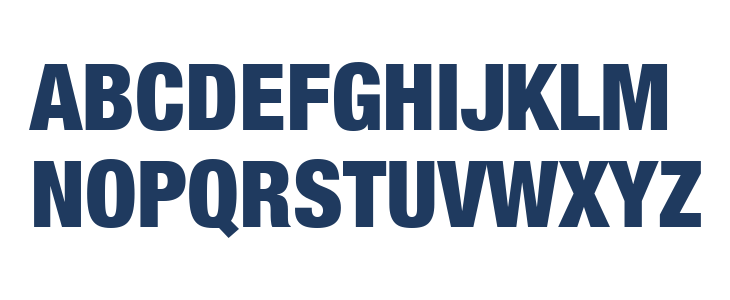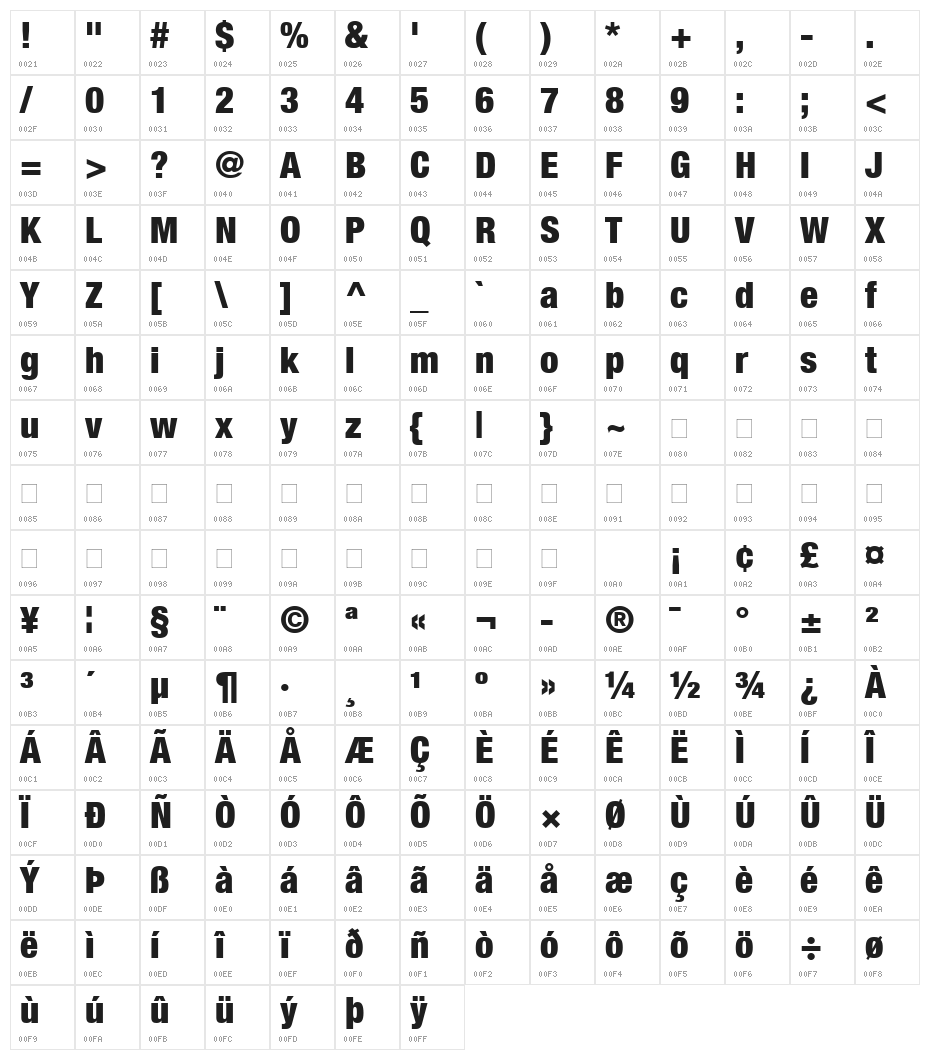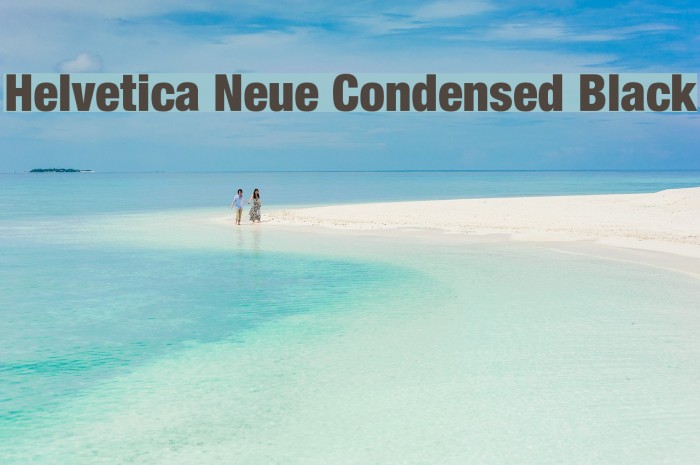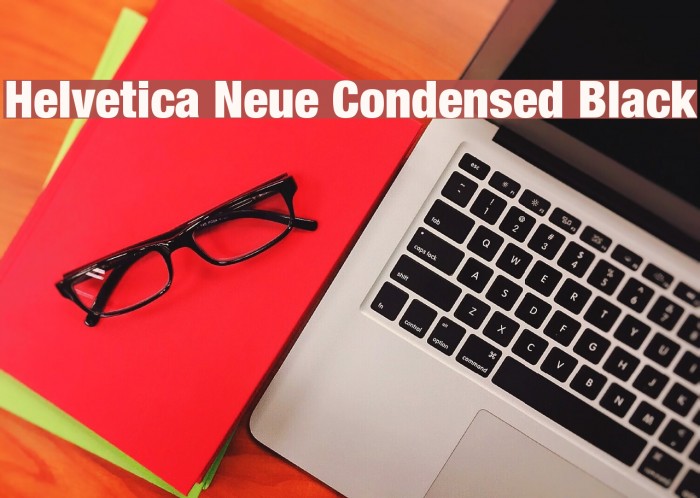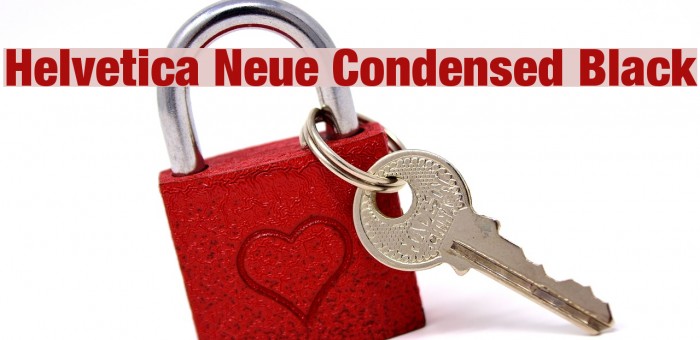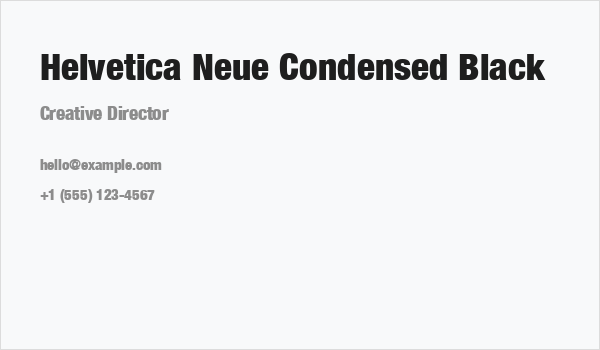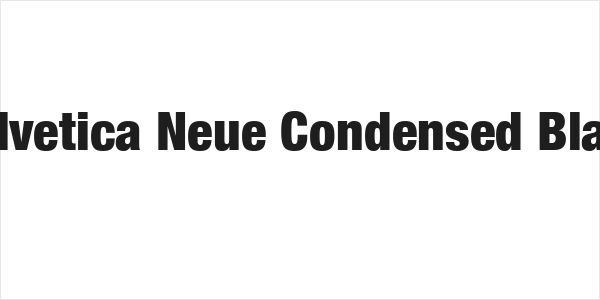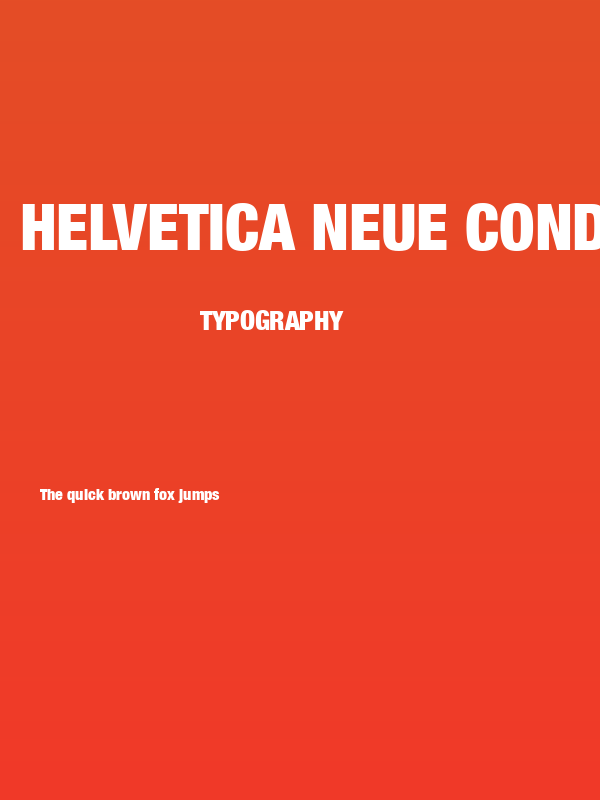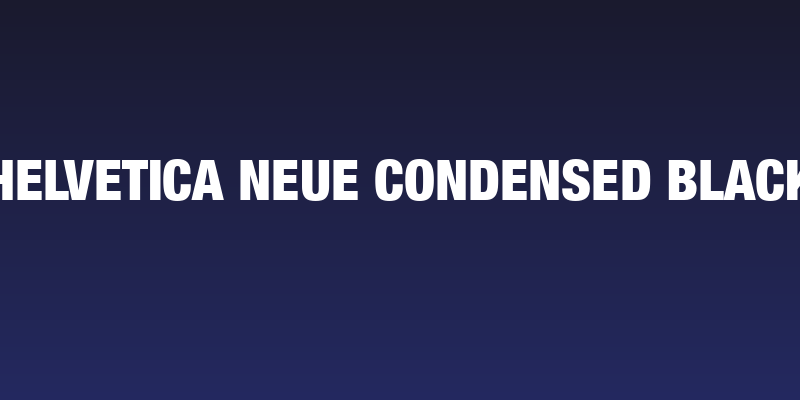
Helvetica Neue Condensed Black Font
Helvetica Neue Condensed Black Description
This font is a bold, sans-serif typeface with a strong, impactful presence. Its condensed form allows for efficient use of space, making it ideal for headlines and titles where maximum impact is desired. The characters are uniform in stroke width, providing a clean and modern appearance. The uppercase and lowercase letters are well-proportioned, and the numerals are clear and legible. Special characters are included, maintaining the same bold and condensed style, ensuring consistency across all text elements.
| Proposed Projects | This font is perfect for advertising, posters, and branding projects where a strong, modern look is required. It can also be used effectively in editorial design for headlines and subheadings. |